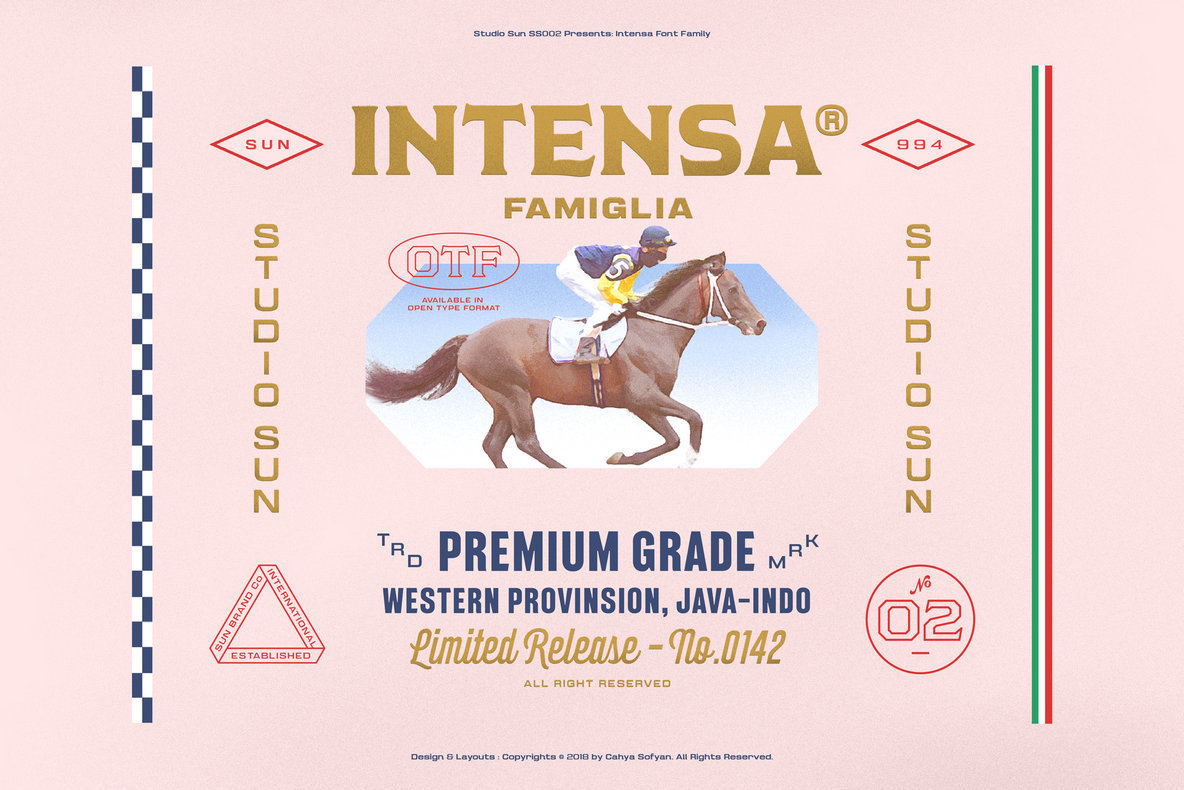
Intensa Font
Intensa Font is perfect for high-performance fitness brands, extreme sports organizations, intense training academies, powerful energy campaigns, adrenaline-driven entertainment, and maximum effort coaching services. Its forceful character makes it ideal for competitive bodybuilding gyms, extreme adventure companies, intense martial arts studios, high-energy supplement brands, powerful motorsports teams, and any project requiring explosive intensity with relentless power and uncompromising strength appeal.
This font is exciting because it channels pure concentrated force and unstoppable determination while delivering exceptional functionality for brands that demand maximum impact and communicate the kind of intense dedication required for extraordinary achievement. The aggressively crafted letterforms vibrate with concentrated energy and explosive potential, creating typography that literally embodies intensity and inspires audiences to unleash their full power and push beyond perceived limitations.
The Intensa Font family typically includes Light, Regular, Medium, and Bold weights with high-impact alternates, force-driven ligatures, and powerful elements that enhance its explosive personality. This comprehensive collection enables intensity professionals to create commanding brand systems that maintain extreme credibility while offering flexibility for various high-impact applications requiring both overwhelming force and contemporary performance market positioning.
Whether you're developing identity systems for extreme performance companies, creating materials for intense competition programs, or designing promotional content for maximum effort organizations, Intensa Font Free Download delivers the concentrated power and explosive intensity that resonates with audiences seeking ultimate performance and extreme dedication. Its commanding presence ensures dominant brand recognition across digital platforms and print materials, making it perfect for websites, mobile applications, and intensity campaigns that celebrate maximum effort, explosive power, and the transformative force of unrelenting determination with contemporary strength standards and authentic concentrated intensity.